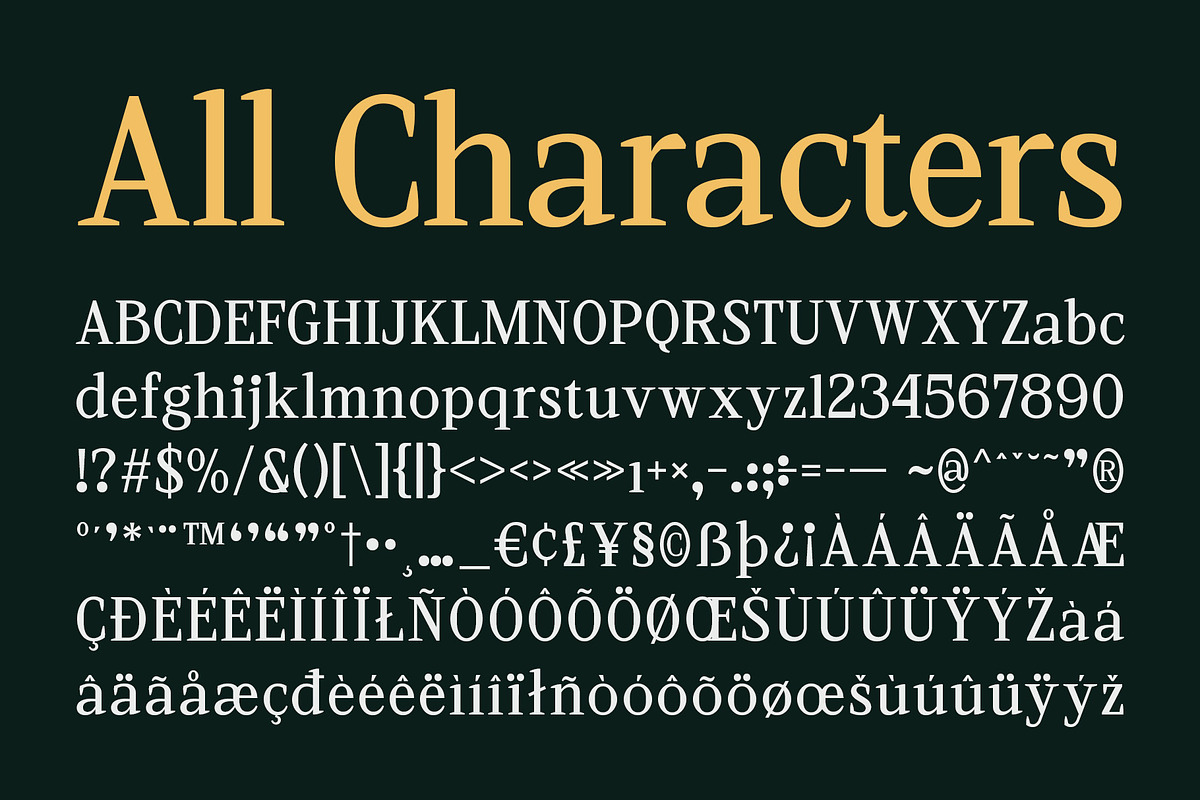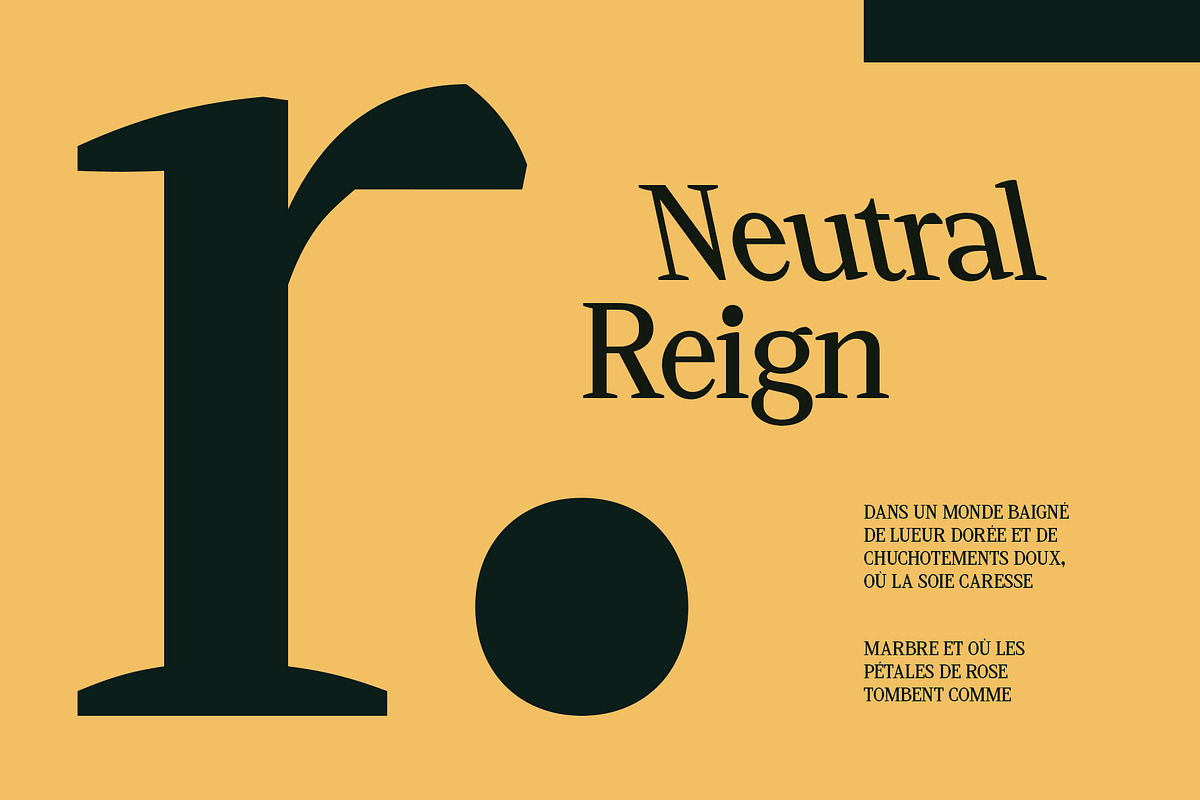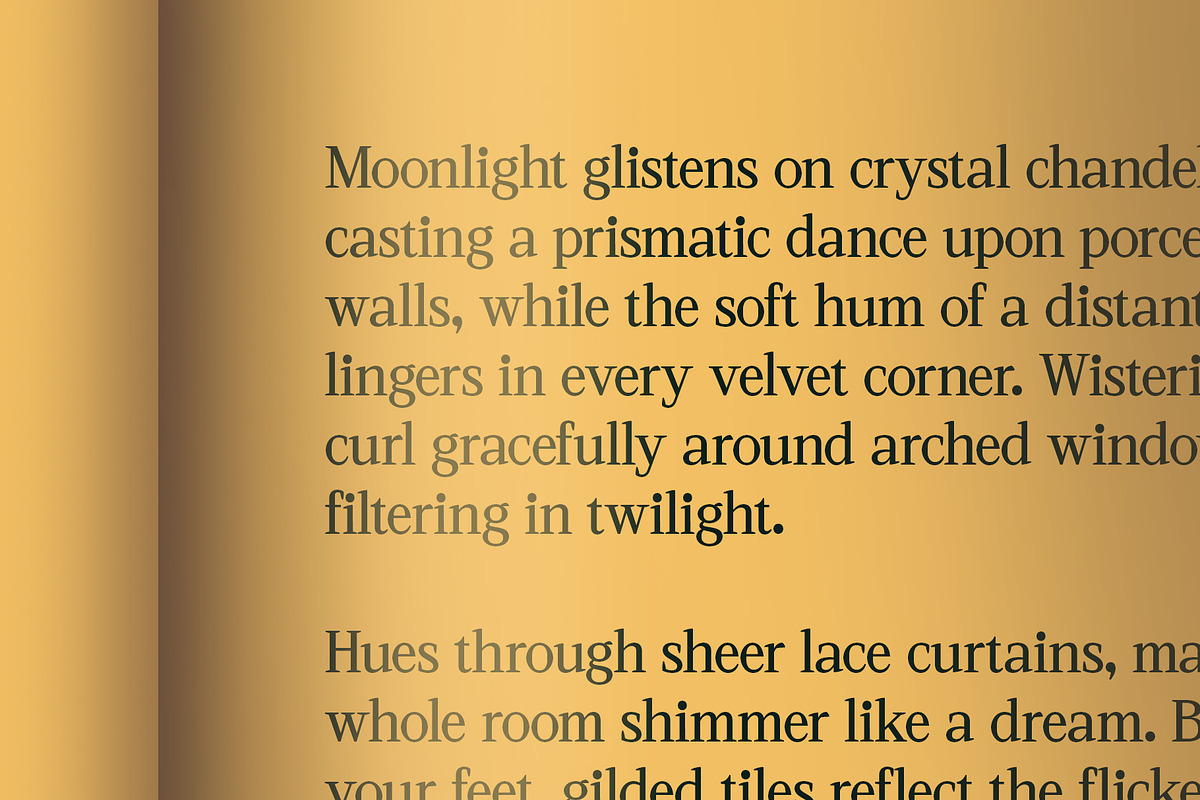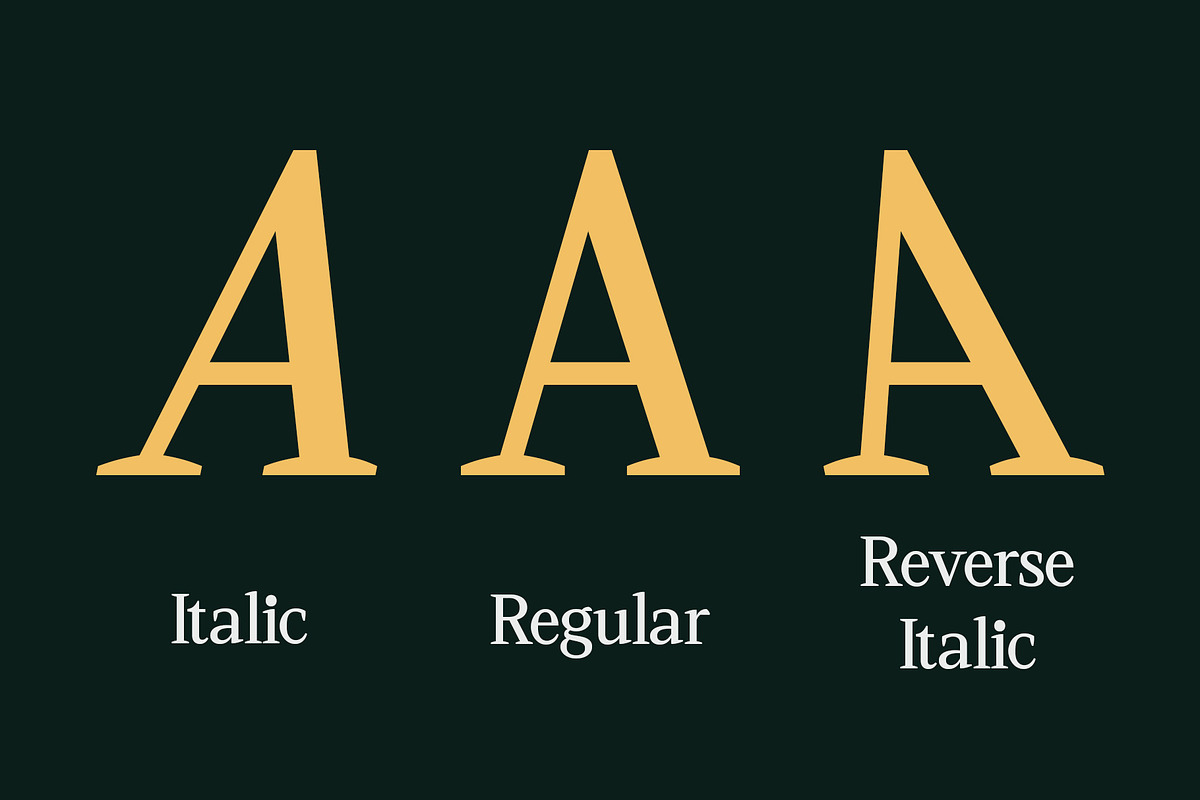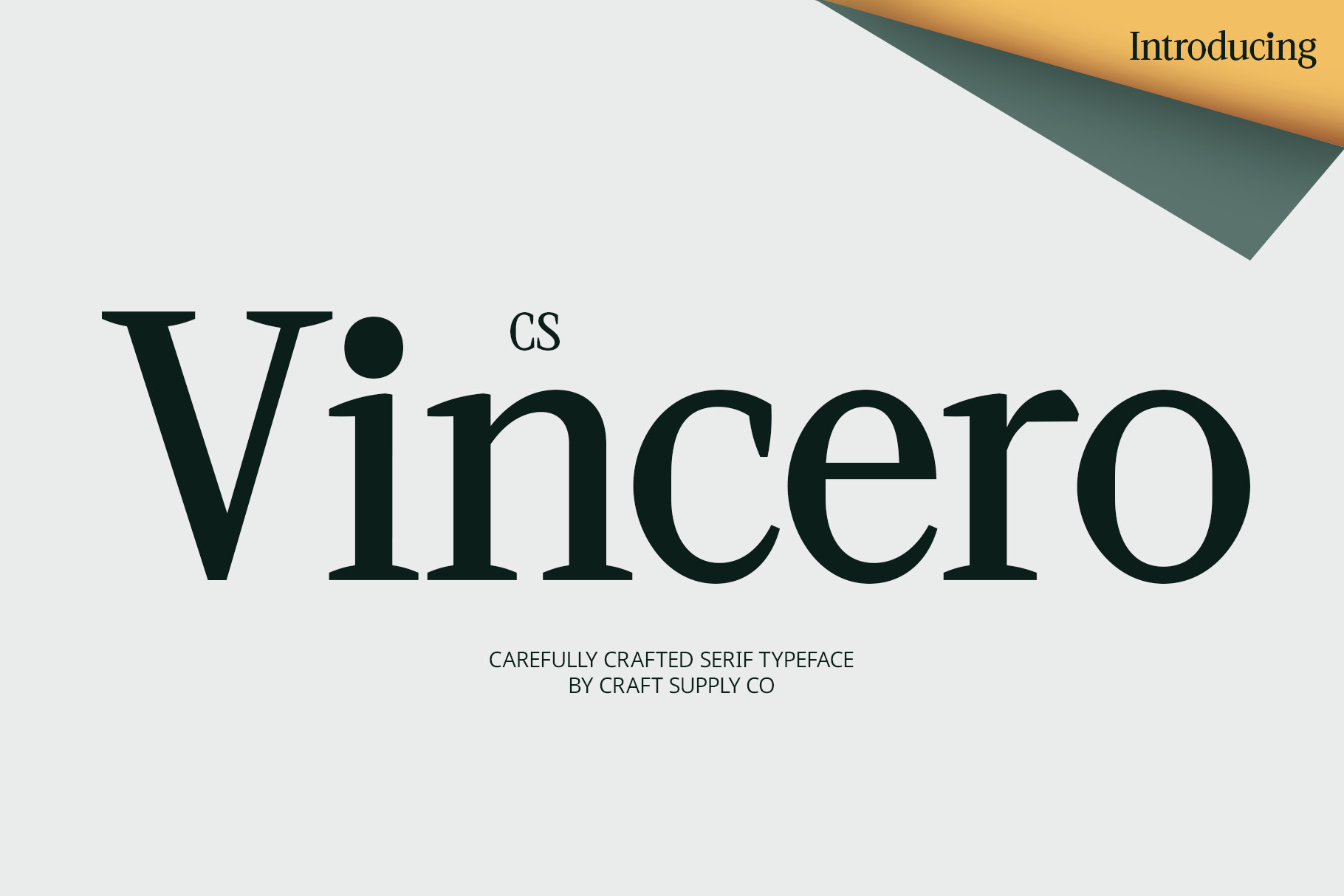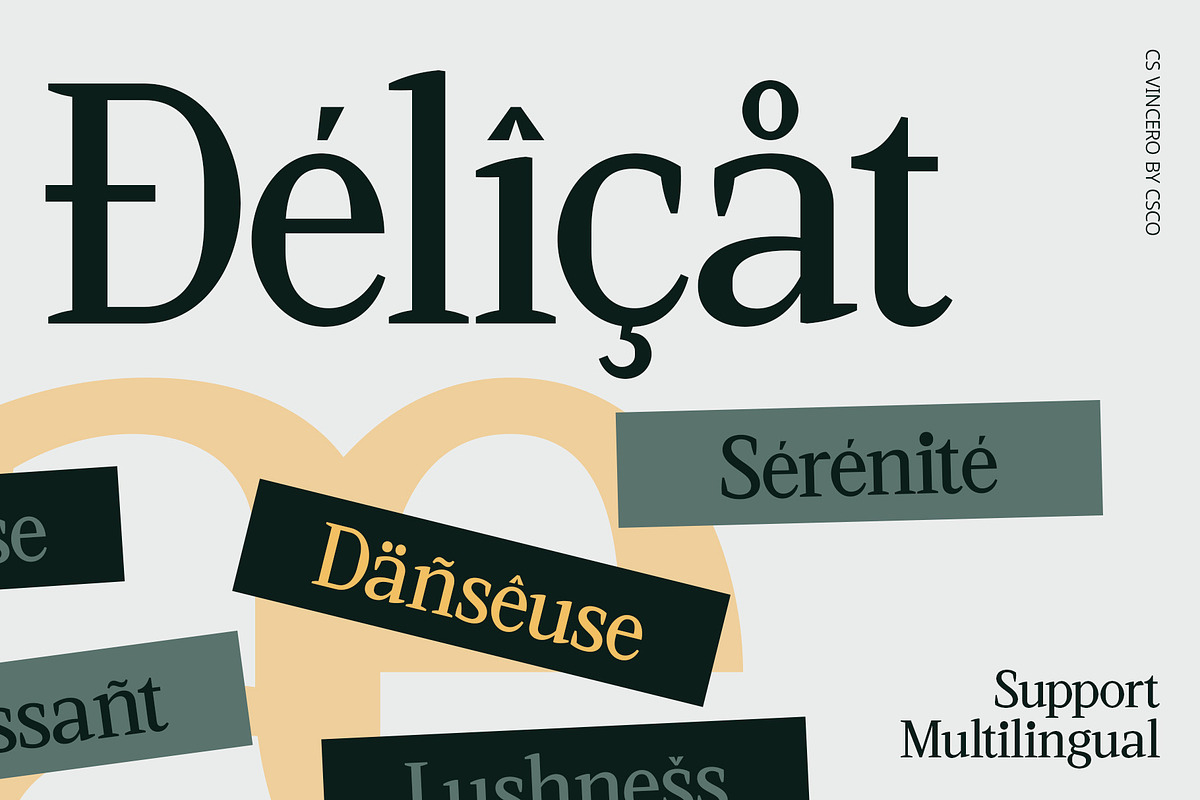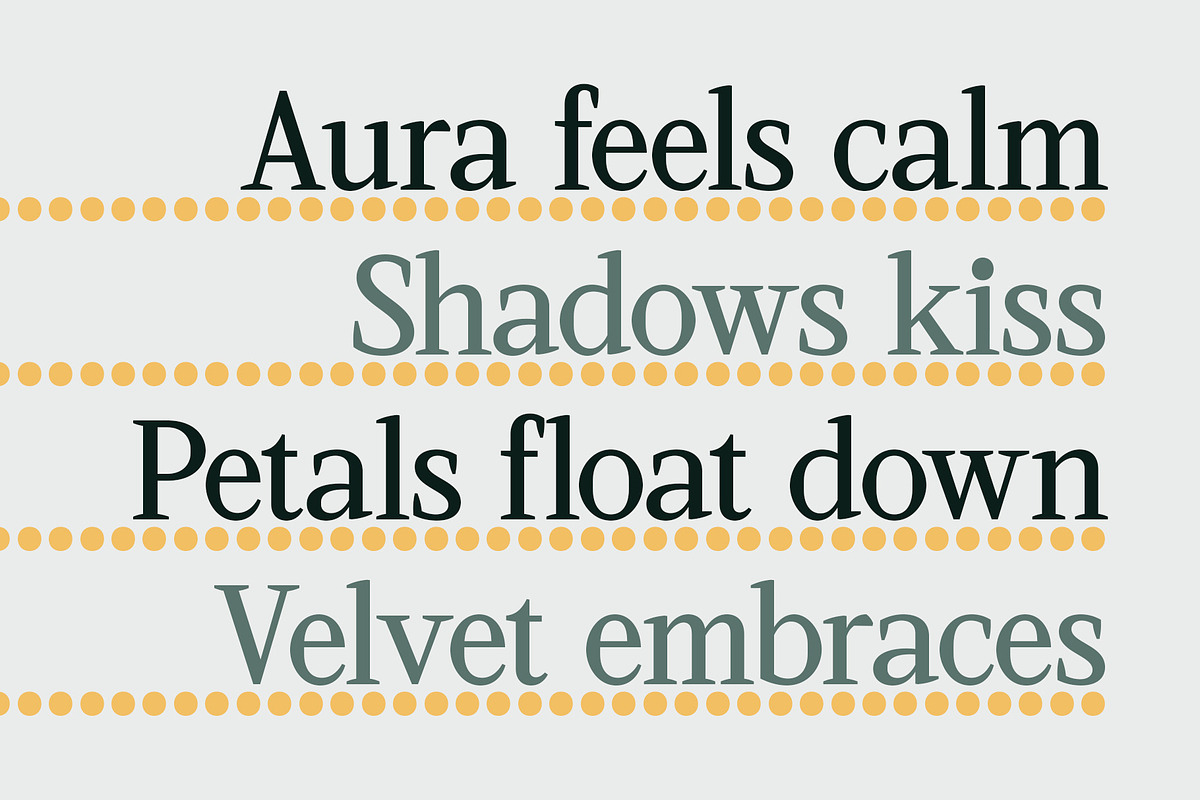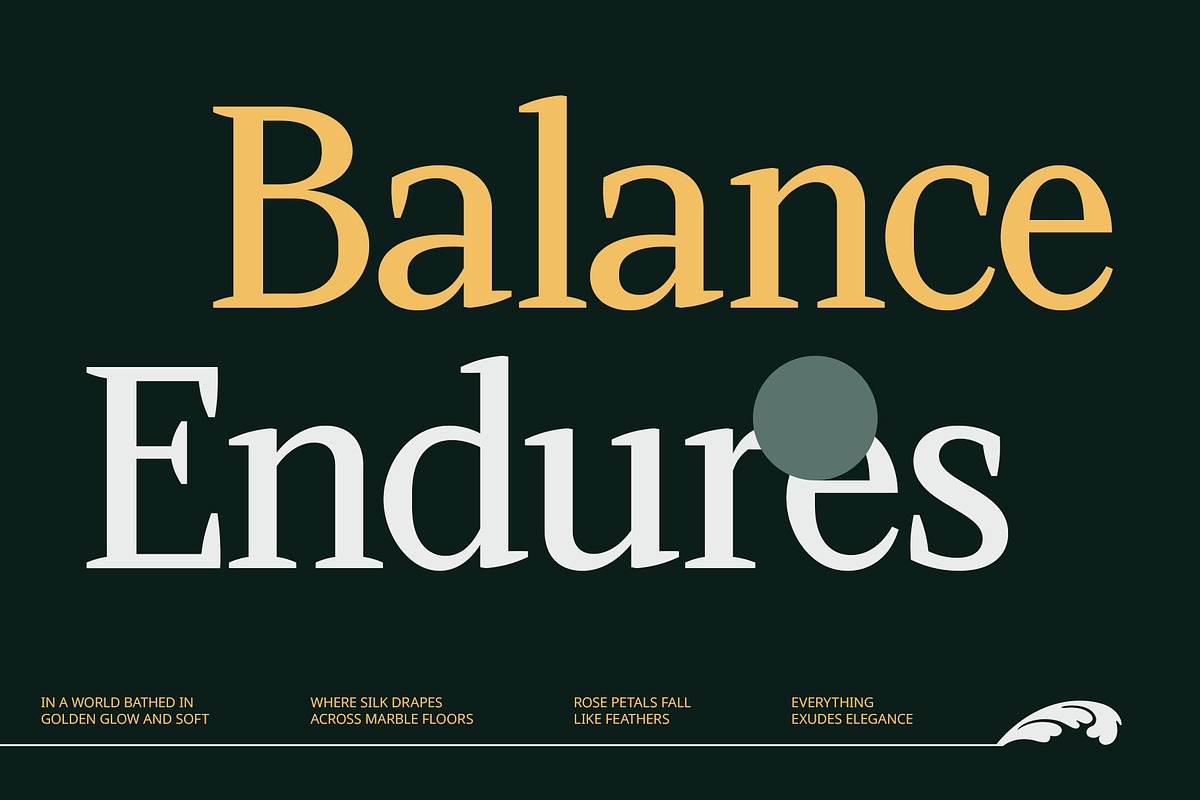
CS Vincero – Contemporary Font
CS Vincero – Contemporary Font: Classic Elegance with a Modern Edge
Slim, Clean, and Professional Design CS Vincero is a modern serif font that blends slim, clean lines with a timeless serif structure. Designed with a contemporary approach, it offers a refined aesthetic that feels current yet grounded—perfect for designers seeking clarity and class in one typeface.
Modern Sophistication with Classic Roots While contemporary in form, CS Vincero retains a classic, trustworthy feel. Its elegant proportions and smooth transitions bring a sense of calm precision, lending authority and grace to your design without appearing dated or rigid.
Ideal for Premium and Editorial Design This font was crafted with high-end and editorial uses in mind. Whether featured in magazine layouts, corporate reports, luxury branding, or product packaging, CS Vincero provides a reliable and stylish voice that commands attention with subtlety.
Neat, Serious, and Versatile Appearance CS Vincero’s neat structure and clear readability make it an excellent fit for professional settings. It communicates seriousness without stiffness, creating a composed and modern impression—ideal for industries like finance, legal, fashion, or media.
Balanced for Digital and Print Environments With its crisp shapes and thoughtful spacing, CS Vincero performs beautifully across both digital screens and printed materials. Its versatility ensures a cohesive, elegant tone in everything from websites and presentations to print collateral and editorial spreads.
- CS Vincero Regular
- CS Vincero Italic
- CS Vincero Reverse Italic